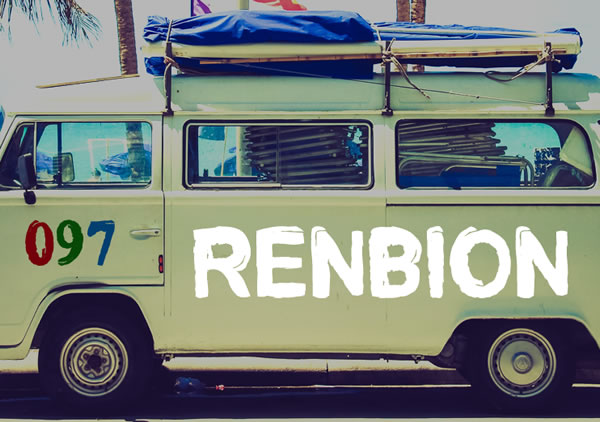
Dive into the realm of boundless creativity with Renbion, a display font family that embodies the essence of ruggedness and adventure. Crafted by the skilled hands at Contour Fonts, Renbion defies the ordinary, captivating audiences with its raw and untamed spirit. Each character exudes a sense of resilience, featuring rough edges and subtle imperfections that tell a story of resilience and determination.
With Renbion, your designs will transcend the mundane, leaving an indelible mark on the hearts and minds of your audience. Its unique aesthetic lends itself perfectly to projects seeking to evoke a sense of authenticity and edge. Picture your designs adorned with Renbion's bold strokes, conveying messages of strength, courage, and an unwavering spirit.
Unleash your imagination and embark on a typographic journey like no other. Renbion's versatility extends far beyond the realm of traditional print media. Bring your digital creations to life with Renbion's captivating charm. Craft stunning logos that command attention, website designs that ooze personality, and social media graphics that captivate and inspire.
Embrace the untamed spirit of Renbion and let your creativity soar. Its rough-hewn texture adds a touch of intrigue and depth to any project, inviting viewers to delve deeper into your message. Tap into the font's innate ability to evoke emotions, creating designs that resonate with your audience on a profound level.